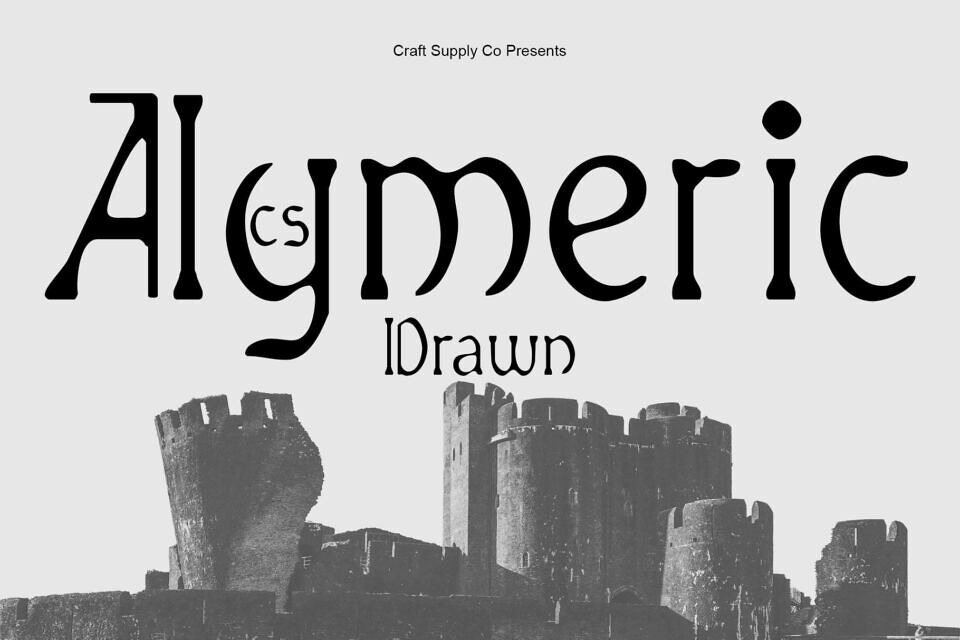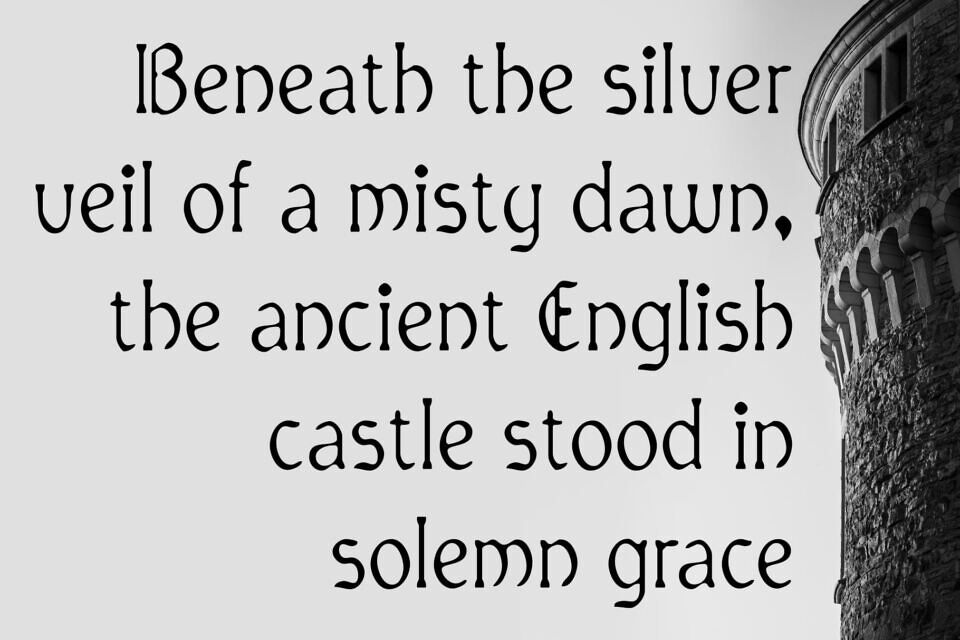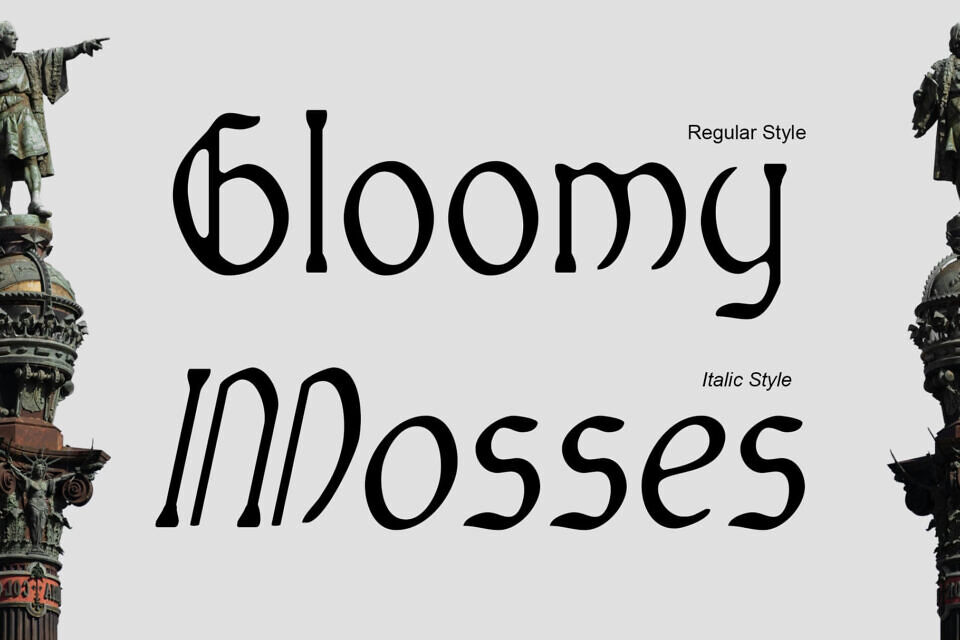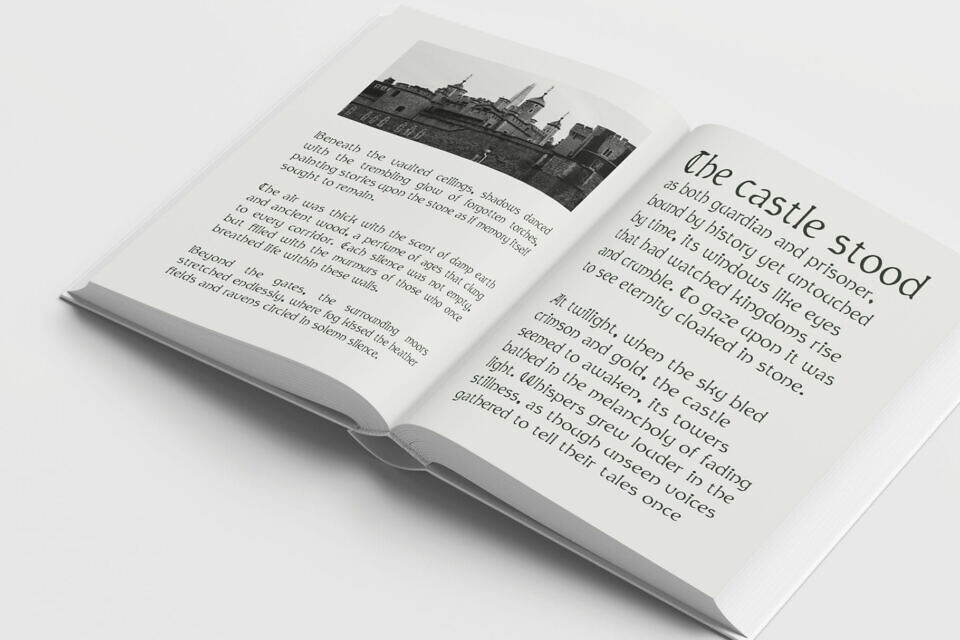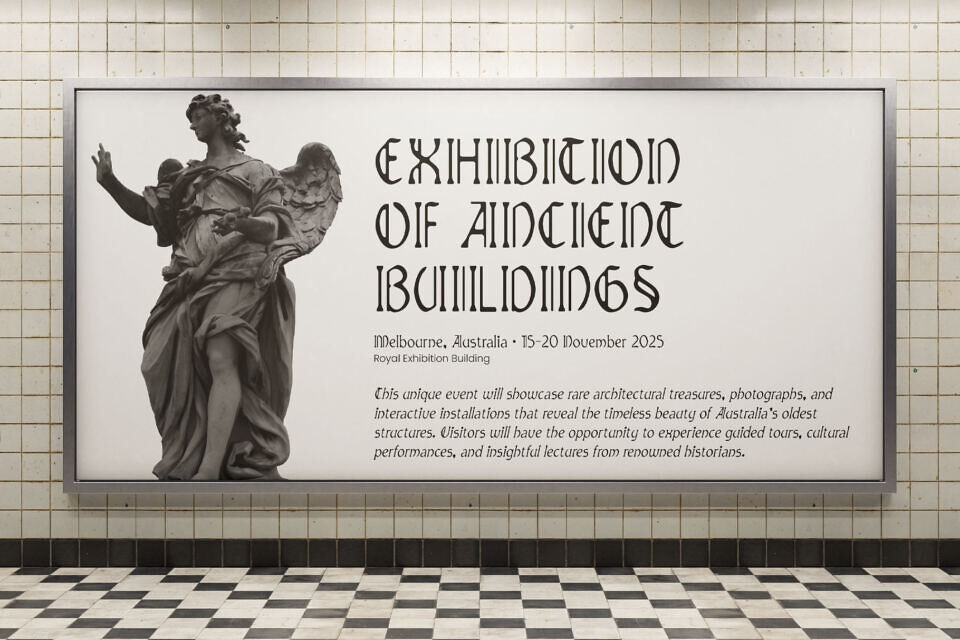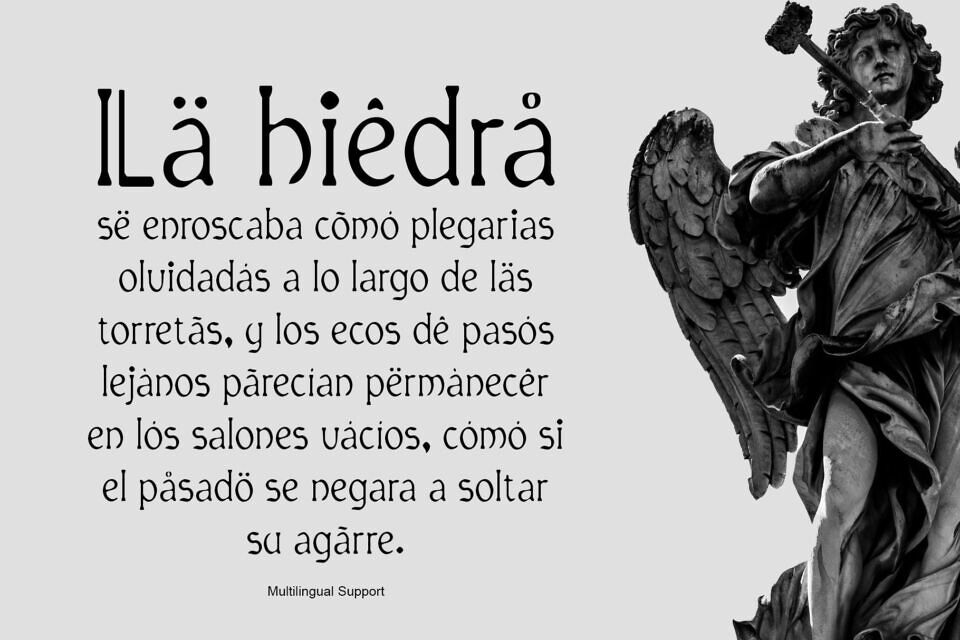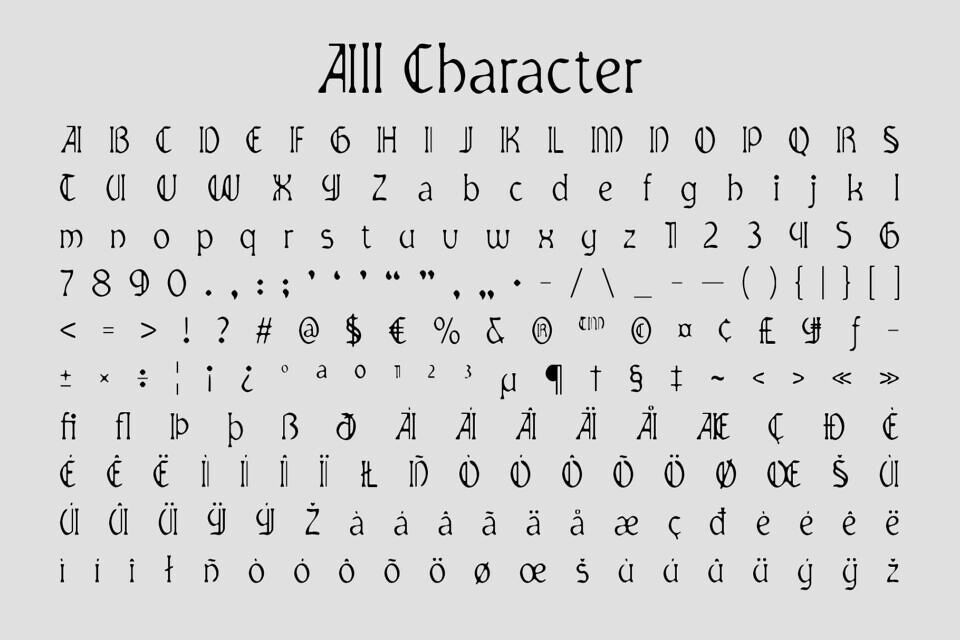
CS Aymeric Drawn is a bold Gothic display font combining heritage-inspired forms with handcrafted artistry. Defined by overflowing lines and dramatic structure, it evokes strength, mystery, and timeless elegance. Its hand-drawn texture enriches classic Gothic shapes with organic depth, ensuring every letter feels alive.
Balancing tradition with contemporary expression, this typeface is ideal for branding, posters, and book titles that demand impact and individuality. CS Aymeric Drawn delivers expressive power, historical resonance, and unique handmade character for unforgettable design.